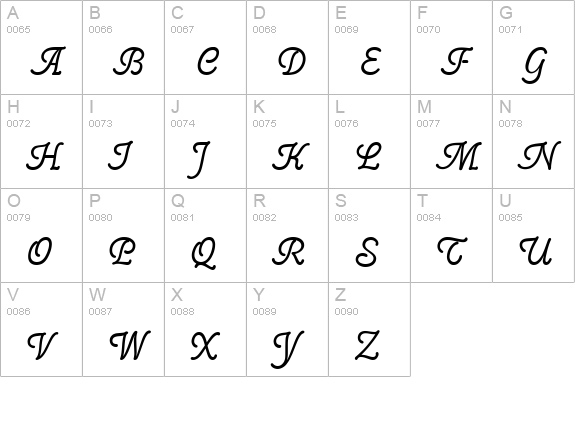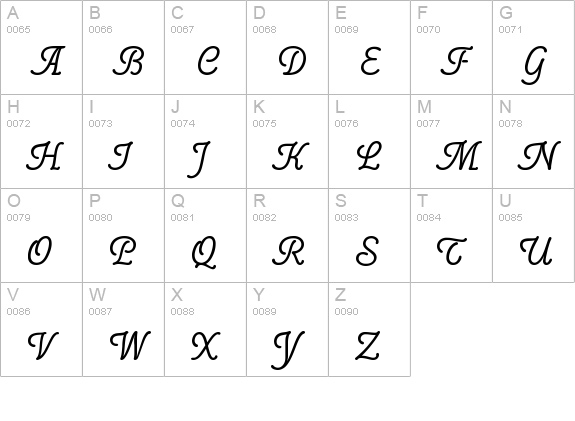
Poppl College (R) 2 Regular Font Details
Poppl College (R) 2 Regular is the standard, neutral variant in the Poppl typeface family \xE2\x80\x94 well suited to general body text, paragraphs, and standard typographic work.
Poppl College (R) 2 Regular font is a versatile and modern typeface that is perfect for various design projects. With its clean lines and sleek appearance, this font exudes professionalism and sophistication. It is suitable for both headings and body text, making it a great choice for any design application. One of the best features of Poppl College (R) 2 Regular font is that it is freely available to download at FontsMarket.com. This means that you can easily access this high-quality font without any cost, making it a valuable addition to your font collection. Whether you are a designer, student, or business professional, having access to a versatile font like Poppl College (R) 2 Regular can greatly enhance your projects and presentations. With its timeless design and elegant aesthetic, Poppl College (R) 2 Regular font is sure to make a lasting impression on your audience. Download it for free today at FontsMarket.com and elevate your design projects with this stylish and sophisticated typeface.